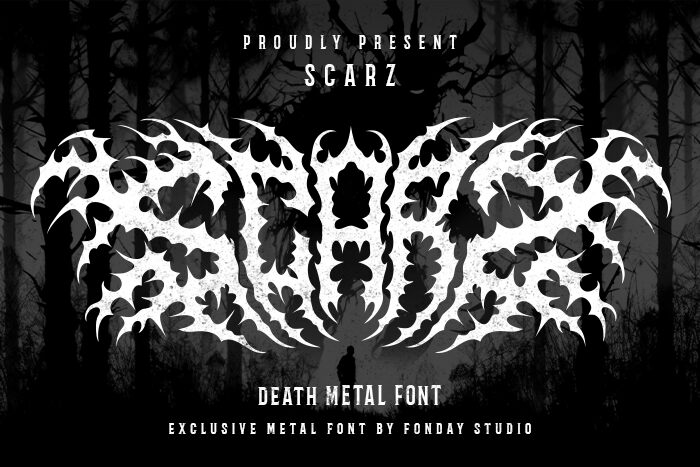
Scarz, designed by Fondaystudio, captivates with its strikingly bold aesthetic that embodies a modern gothic style infused with an eerie allure. The font features dramatically sharp edges and an intricate design, evoking a sense of the macabre while remaining visually compelling. Its eye-catching presence commands attention, making it ideal for projects aiming to evoke mystery and intrigue.
Perfect for horror-themed graphics, poster designs, or event promotions that require a touch of drama, Scarz adds a unique flair to any creative endeavor. Its animated forms create dynamic visual interest, making it suitable for everything from album covers to branding efforts in adventurous industries. With Scarz at the forefront of your design work, captivating your audience is not just possible; it's inevitable.